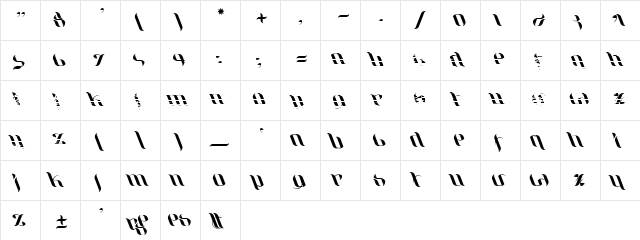
UniLeaf Italic
Design Context for UniLeaf Typeface
UniLeaf is a composed and adaptable typeface that performs quietly and consistently across a wide range of design contexts. Its italic angle brings a sense of urgency and motion to the letterforms.
Pro Tip: Use UniLeaf for emphasis, pull quotes, and subheadings where its slanted energy can add rhythm to the layout.